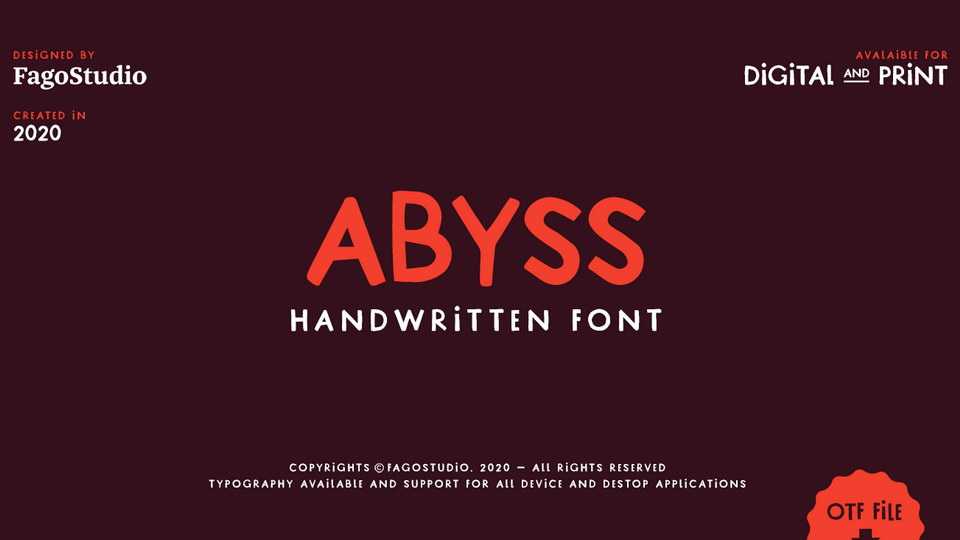
Download Abyss font, a playful handwritten typeface useful for your compositions, prints and applications. Abyss can be used in title but also in paragraph text.
Designer: Fago Studio